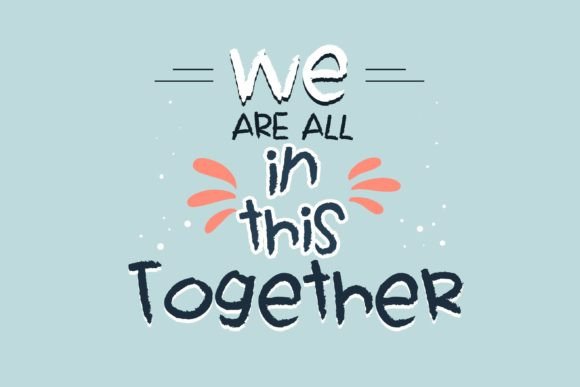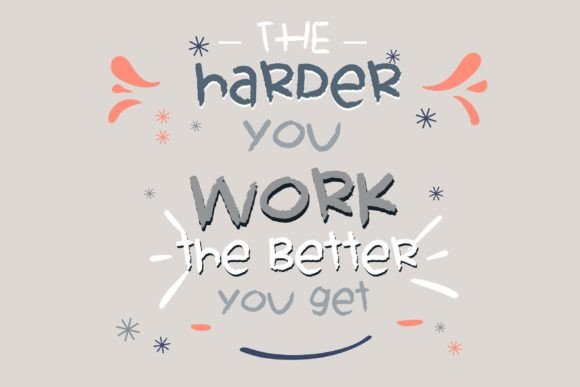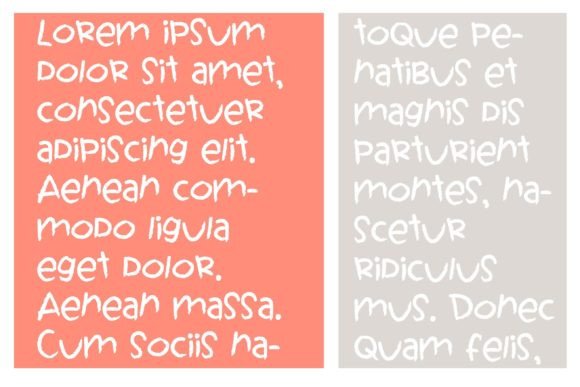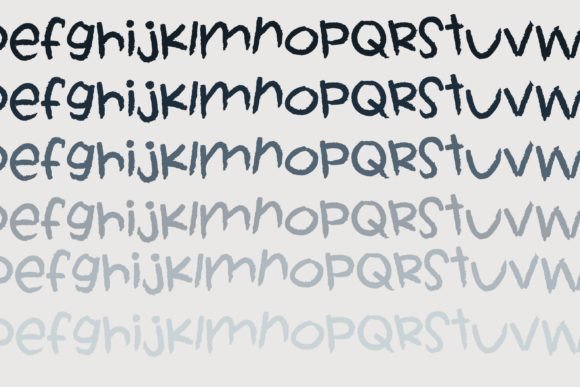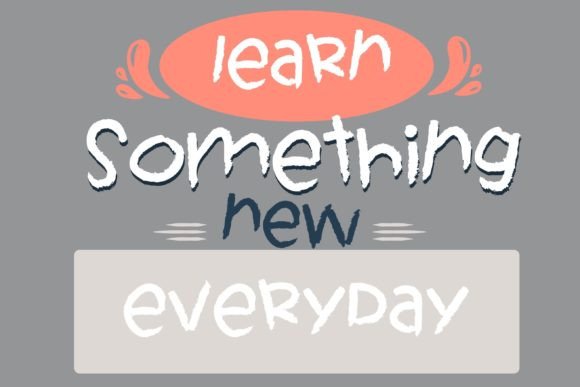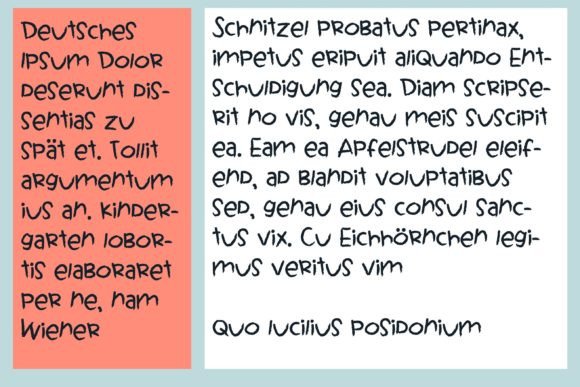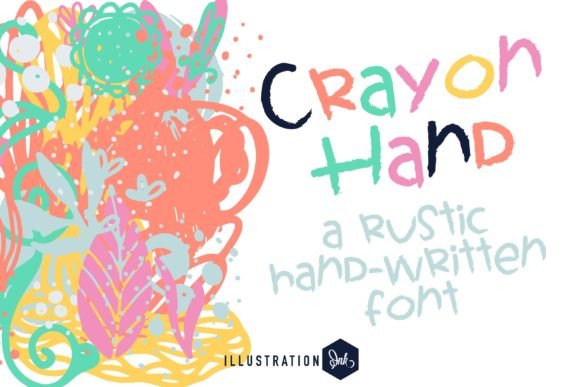
Crayon Hand Font: Add a Touch of Childhood Charm to Your Designs
Are you looking for a font that can add a dash of playfulness and whimsy to your designs? Look no further than the Crayon Hand Font. This textured, handwritten font is designed to mimic the look and feel of crayon on textured paper, making it perfect for designers and crafters who want to add a touch of childhood charm to their creations.
The Inspiration Behind Crayon Hand Font
The Crayon Hand Font is inspired by the classic crayon drawings of childhood. Who didn’t spend hours coloring with crayons on textured paper, creating masterpieces that were often more scribbled than refined? The font captures the essence of those carefree days, bringing a sense of nostalgia and playfulness to any design.
What Makes Crayon Hand Font So Special?
Crayon Hand Font is more than just a font – it’s an experience. Its textured, handwritten design gives it a unique, organic feel that’s perfect for a wide range of applications. Whether you’re designing a children’s book, a craft tutorial, or a playful marketing campaign, this font is sure to delight.
Key Features of Crayon Hand Font
• Textured, Handwritten Design: The Crayon Hand Font features a textured, handwritten design that’s reminiscent of crayon on paper.
• Playful and Whimsical: This font is perfect for designs that require a playful and whimsical touch.
• Highly Versatile: Crayon Hand Font can be used for a wide range of applications, from children’s books to marketing campaigns.
• Easy to Read: Despite its textured design, the Crayon Hand Font is easy to read, making it perfect for body text and headlines.
How to Use Crayon Hand Font in Your Designs
Crayon Hand Font is incredibly versatile, making it perfect for a wide range of design applications. Here are a few ideas to get you started:
Children’s Books and Educational Materials
The Crayon Hand Font is perfect for children’s books, educational materials, and activity sheets. Its playful design will delight kids and make learning fun.
Crafting and DIY Projects
Crafters and DIY enthusiasts will love the Crayon Hand Font for their projects. Use it to create titles, headings, and descriptions for craft tutorials, patterns, and inspirational quotes.
Marketing Campaigns and Social Media
Add a touch of whimsy to your marketing campaigns and social media posts with the Crayon Hand Font. It’s perfect for creating eye-catching headlines, titles, and descriptions that will grab attention.
Tips for Getting the Most Out of Crayon Hand Font
Here are a few tips for getting the most out of the Crayon Hand Font:
Experiment with Colors and Textures
The Crayon Hand Font is designed to look like crayon on paper, so don’t be afraid to experiment with different colors and textures. Try pairing it with bright, bold colors or soft, pastel hues.
Mix and Match with Other Fonts
The Crayon Hand Font pairs well with a wide range of other fonts. Try mixing and matching it with serif, sans-serif, or script fonts to create interesting and dynamic typography.
Use it for Headlines and Titles
The Crayon Hand Font is perfect for headlines and titles, but it can also be used for body text. Experiment with different font sizes and styles to create visual interest.
The Crayon Hand Font is a versatile and playful font that’s perfect for designers and crafters who want to add a touch of childhood charm to their creations. Its textured, handwritten design makes it perfect for a wide range of applications, from children’s books to marketing campaigns. With its ease of use and flexibility, the Crayon Hand Font is sure to become a favorite in your font library.